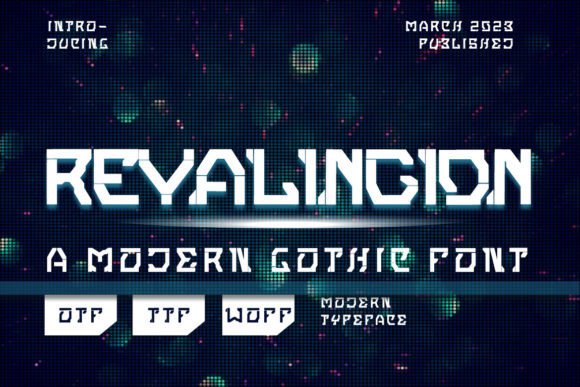
Journey to the cutting edge of typography with Revalingion, the display font that embodies the spirit of the future. Its sharp, angular letters, defined by unique cuts and geometric shapes, evoke a captivating blend of sophistication and innovation. Revalingion is your gateway to creating eye-catching titles and headlines for technology-related projects, video games, and designs that dare to embrace the unknown.
In a world saturated with conventional fonts, Revalingion emerges as a beacon of originality. Its futuristic and edgy vibe sparks imagination, inviting you to transcend the boundaries of ordinary design. Let your creativity run wild as you craft titles that slice through the mundane, leaving an indelible mark on the digital landscape.
Revalingion is not just a font; it's a gateway to a world where technology and art dance in perfect harmony. Its dynamic personality breathes life into your projects, captivating audiences with its unique and unforgettable presence. Prepare to unleash a typographic revolution, where every word carries the weight of innovation and pushes the boundaries of design.
This font is more than just a collection of letters; it's a passport to the future of typography. Its sleek and modern aesthetic is a testament to the boundless possibilities of digital art. With Revalingion, you hold the power to transform ordinary designs into captivating masterpieces, leaving a lasting impression that echoes through the digital realm.
So, embrace the allure of Revalingion and step into a new era of design brilliance. Let your creativity soar as you unleash the untapped potential of this extraordinary display font. The future of typography awaits - are you ready to seize it?